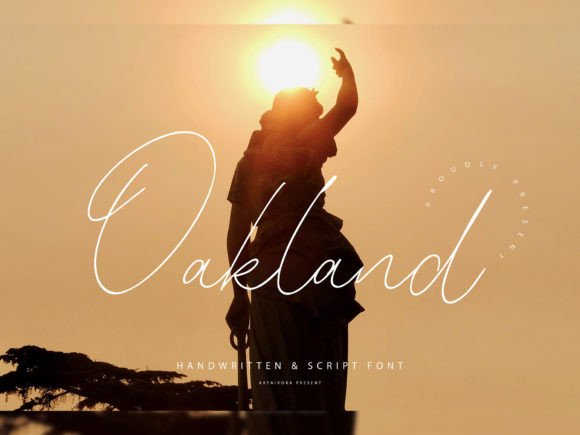
Dive into the depths of Oakland Font, a captivating journey into the realm of script fonts, a masterpiece crafted with an artistic flair by artnivora.std. Let your creativity take flight with this stunning font that seamlessly blends simplicity and elegance. Experience the timeless beauty of classic touch in every letter, meticulously designed to evoke emotions and leave a lasting impression.
Oakland Font isn't merely a font; it's an artistic expression that breathes life into your projects. Its delicate strokes, flowing curves, and enchanting letter J will captivate your audience, leaving them spellbound by your designs. Whether you're a seasoned designer or just starting your creative adventure, Oakland Font is your perfect companion, guiding you effortlessly through your artistic endeavors.
Picture this: you're working on a captivating logo design, yearning for a font that embodies timeless sophistication. Oakland Font steps onto the scene, its classic touch adding an air of elegance and professionalism. Each letter intertwines effortlessly, creating a visual symphony that commands attention. Your logo becomes more than just an identifier; it transforms into a symbol of excellence, leaving a lasting mark on your clients' minds.
Or perhaps, you're crafting a magazine layout, eager to infuse it with a touch of classic charm. Oakland Font emerges as your chosen hero, its graceful curves and flowing strokes effortlessly guiding the reader through your captivating stories. Its elegant presence adds a layer of sophistication, elevating the reading experience and leaving your audience yearning for more.
Step into the world of social media and let Oakland Font amplify your presence. Its magnetic charm will draw followers in, captivating them with each post and story. The font's enchanting letter J will dance across the screen, enticing audiences to engage with your content. Watch as your social media platforms transform into vibrant hubs of creativity and connection.
The possibilities with Oakland Font are endless, extending far beyond logos, magazines, and social media. Unleash your imagination and let this font elevate your brochures, flyers, invitations, and any project that demands a touch of classic beauty. Its versatility knows no bounds, allowing you to create designs that resonate with your audience on a deeper level.